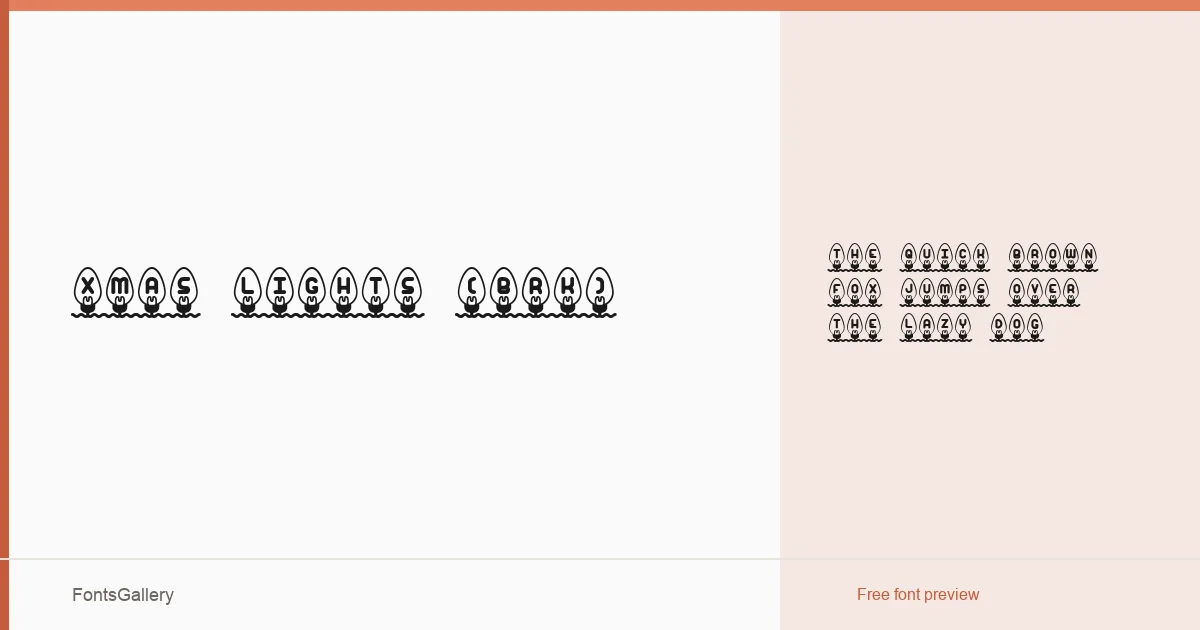
About Xmas Lights (BRK) Font
Xmas Lights (BRK) is a decorative typeface from Ænigma Fonts, designed to capture the festive charm and nostalgic warmth of the holiday season. With its playful and whimsical character, this font brings a vintage holiday spirit to any creative project. It is a standout choice for designers looking to infuse seasonal cheer into their work.
The letterforms of Xmas Lights (BRK) lean into a decorative, whimsical style that feels both playful and charmingly vintage. Each character carries an expressive, festive quality that evokes the look and feel of classic holiday imagery. The overall aesthetic balances nostalgic warmth with an eye-catching, light-hearted energy.
This typeface shines brightest in holiday posters, seasonal greeting cards, festive social media graphics, and T-shirt designs where a celebratory tone is key. Its decorative nature works best as a display or headline font rather than for body copy. Pair it with clean, neutral typefaces like Helvetica for contrast and legibility, or combine it with Aresink for a more expressive, characterful design.